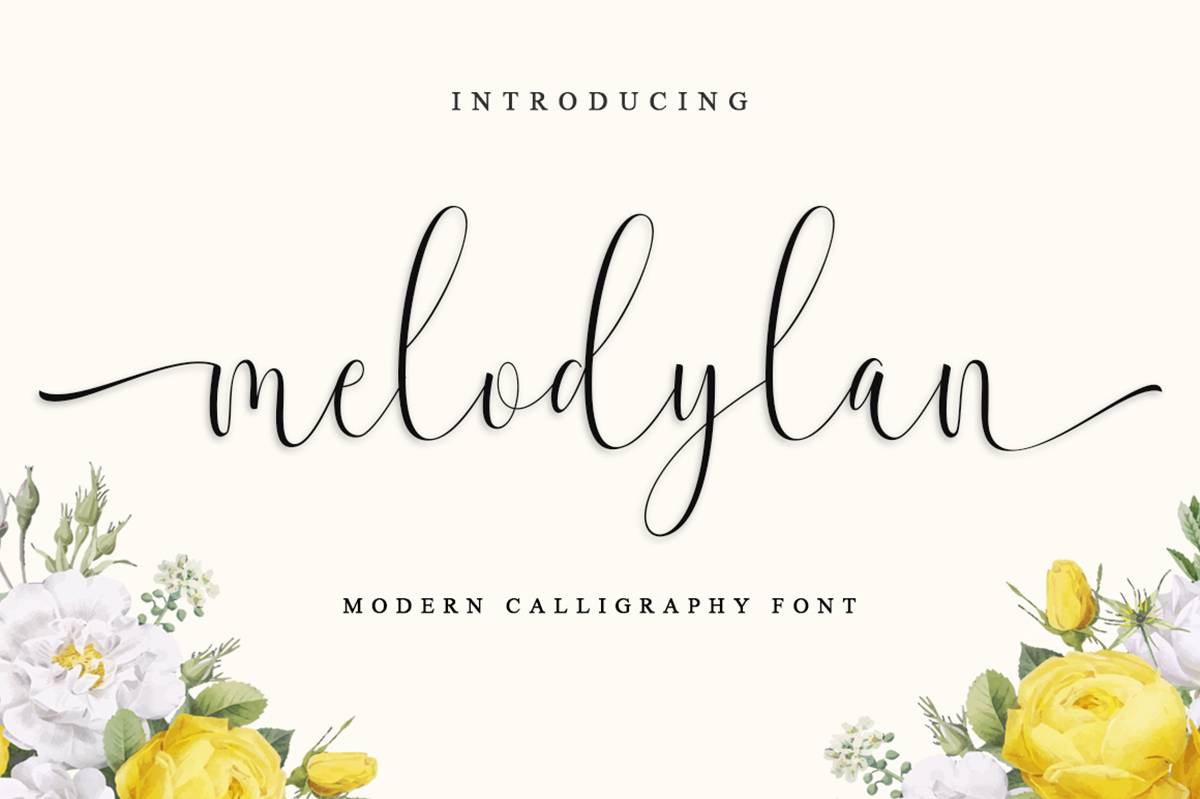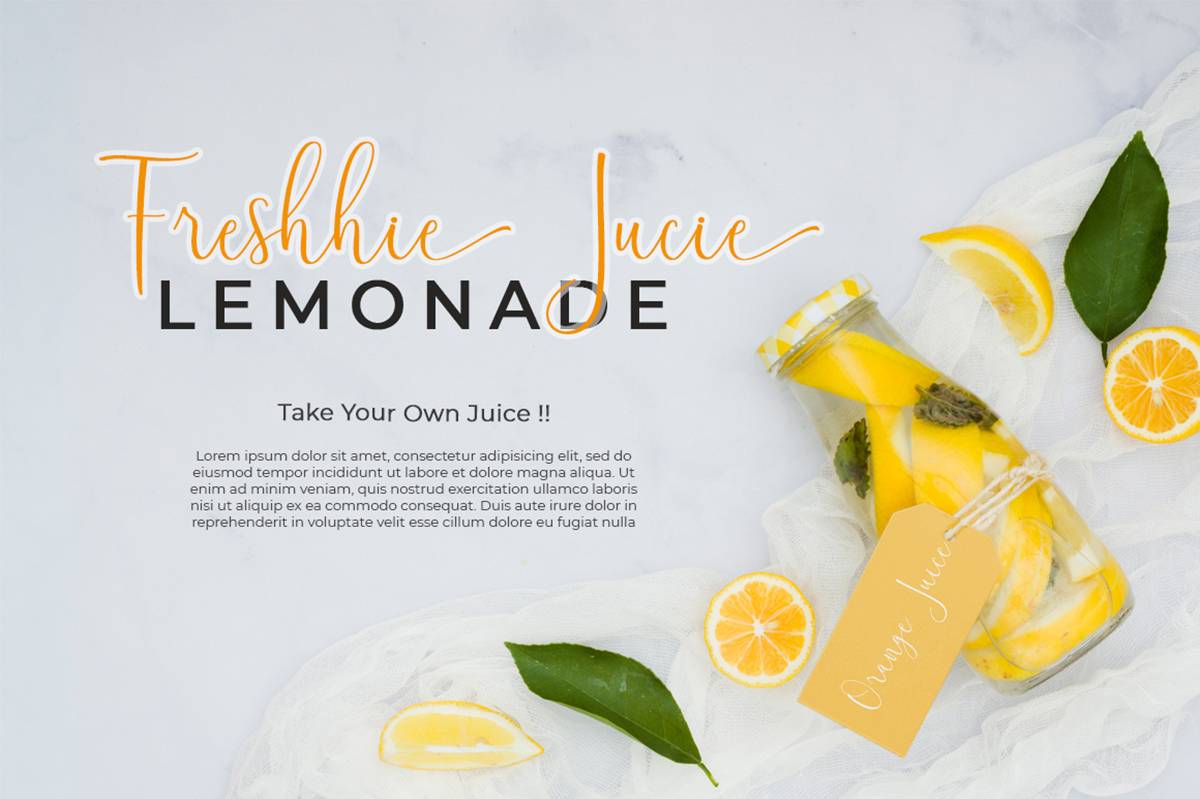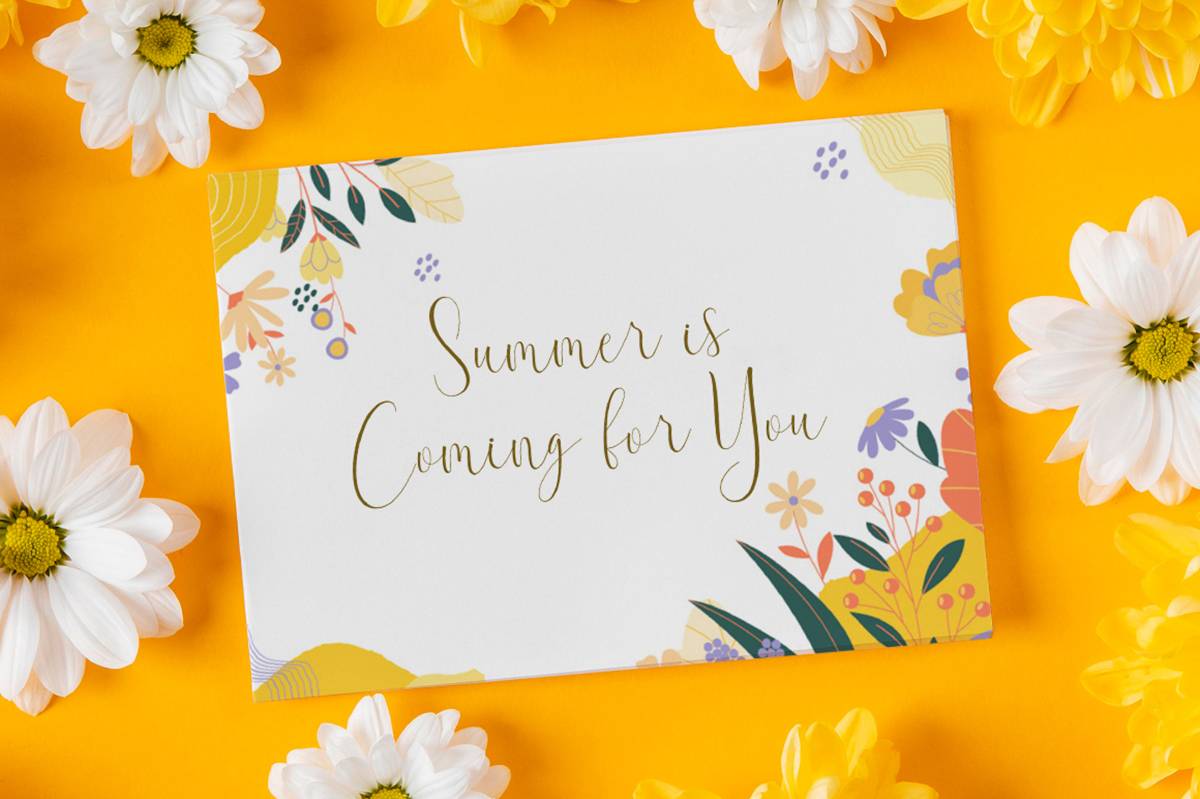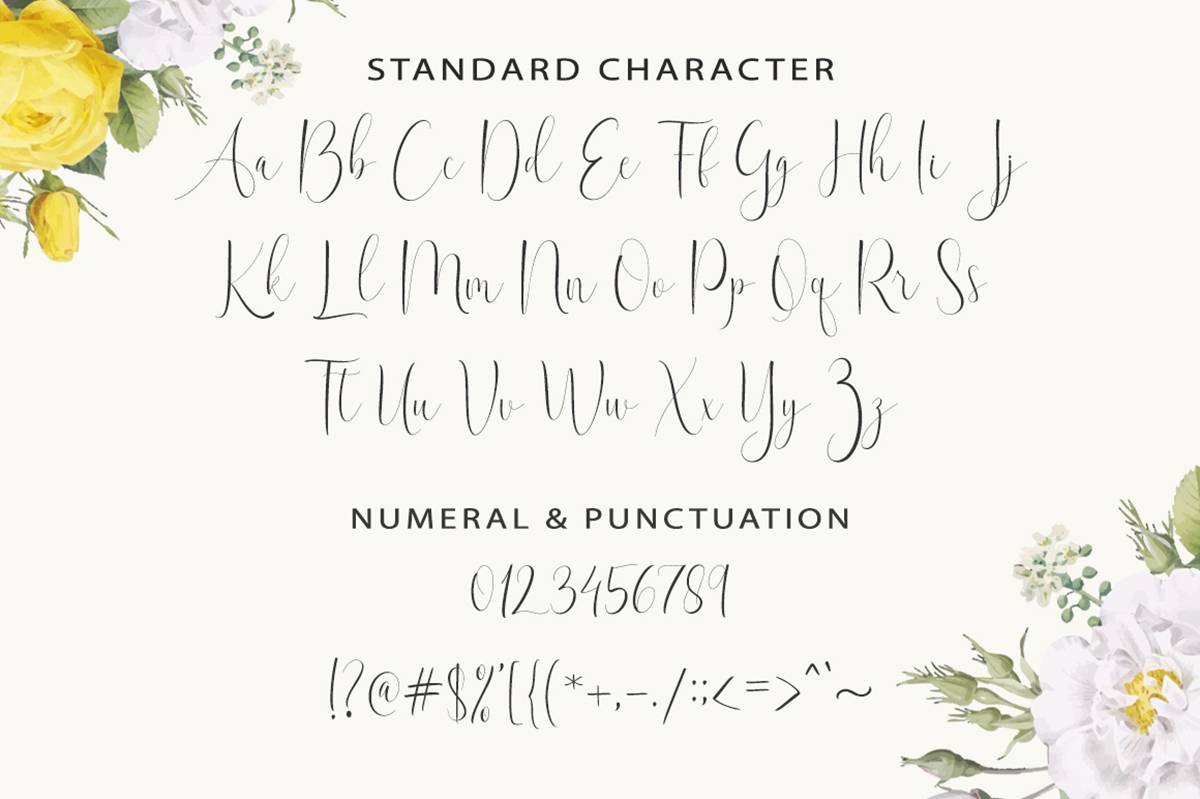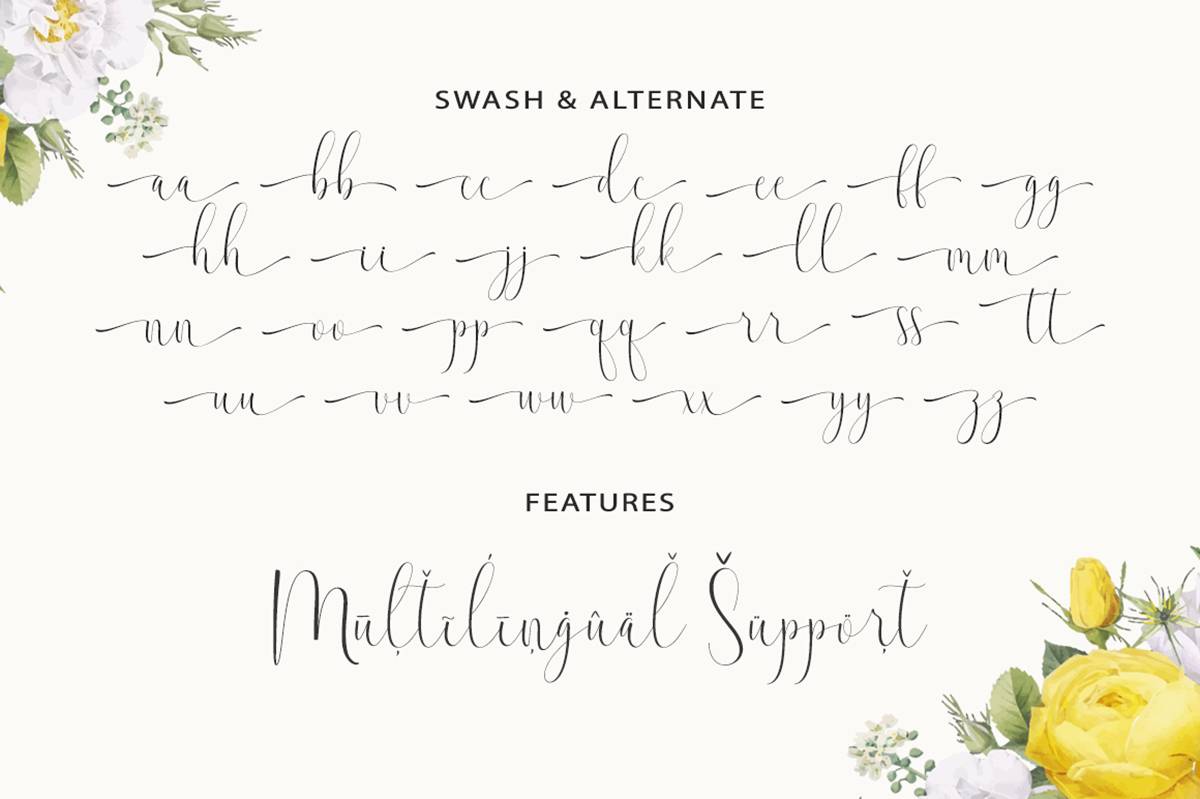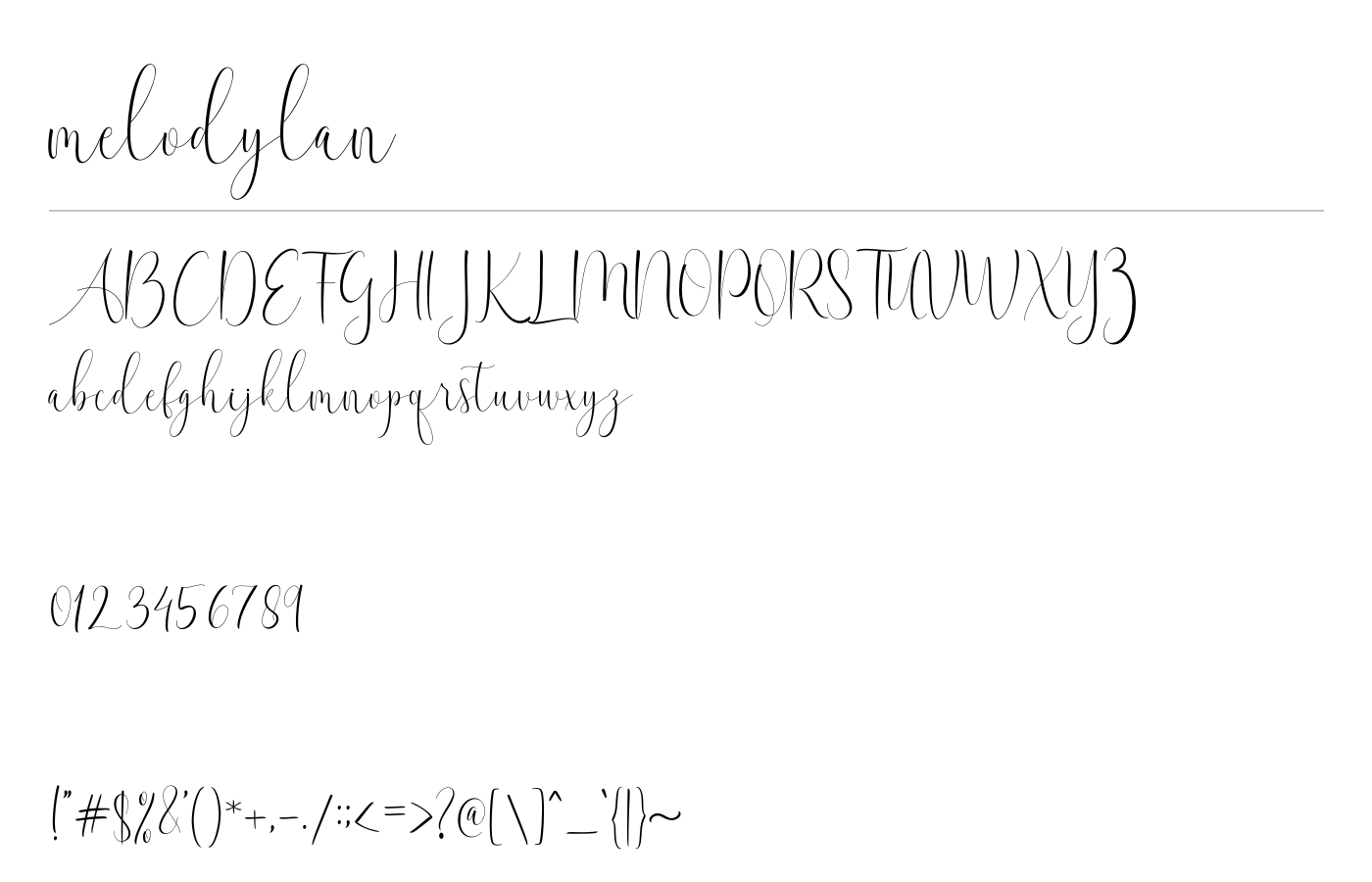
Melodylan Script is a delicate, elegant handwritten font with tall, flowing letterforms that exude a graceful and whimsical charm. Its thin strokes and subtle curves create a light, airy feel perfect for romantic or feminine designs, making it ideal for invitations, greeting cards, branding, and stylish logos. This font brings a refined, personal touch to any project that seeks a soft yet sophisticated appearance.
Melodylan Script Font
About Melodylan Script Font